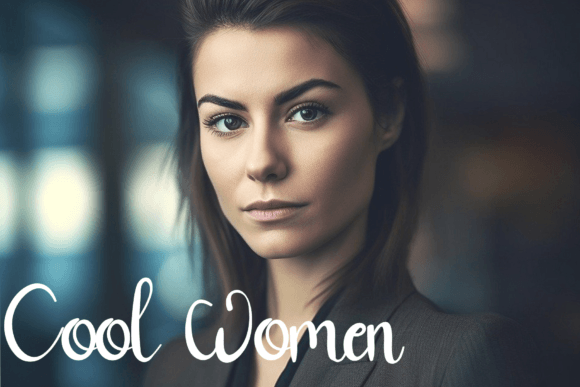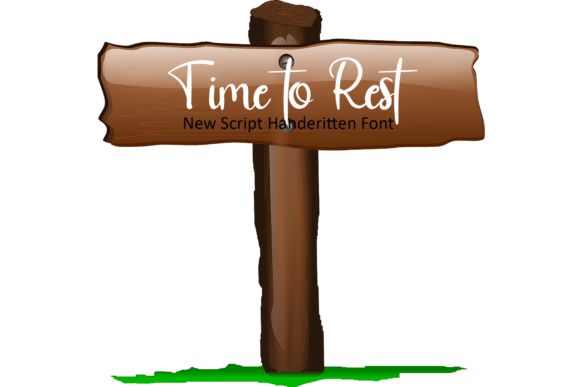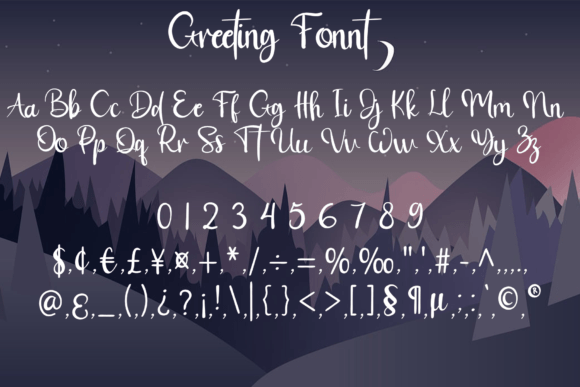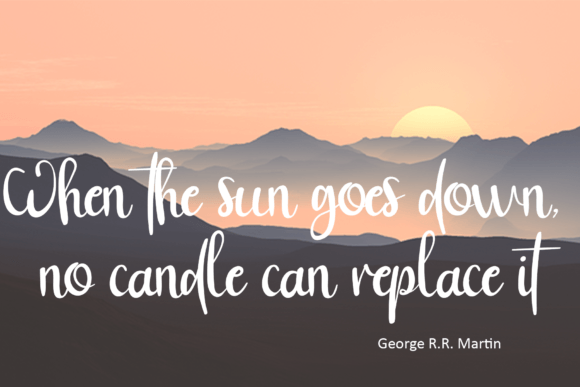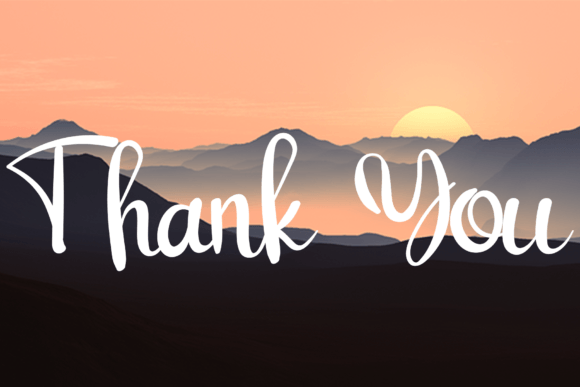
Greeting Font: Elevate Your Designs with Elegance and Sophistication
Are you tired of using the same old fonts in your designs? Look no further than the Greeting Font, a stunning handwritten font that is sure to take your projects to the next level. With its elegant and flowing lines, varied baselines, and smooth curves, this font is perfect for designers and crafters looking to add a touch of class and sophistication to their work.
The Characteristics of Greeting Font
Greeting Font is a beautifully crafted handwritten font that boasts a range of characteristics that set it apart from other fonts. Some of its key features include:
- Elegant and flowing lines: Greeting Font features smooth, flowing lines that give it a sense of movement and fluidity. This makes it perfect for creating beautiful, eye-catching headings and titles.
- Varied baselines: Unlike many fonts, Greeting Font features varied baselines that add to its sense of elegance and sophistication. This means that each letter has a unique baseline, creating a sense of visual interest and depth.
- Smooth curves: The curves in Greeting Font are smooth and flowing, giving the font a sense of softness and approachability. This makes it perfect for creating designs that are both beautiful and inviting.
- Classy calligraphic influence: Greeting Font has a clear calligraphic influence, giving it a sense of elegance and sophistication. However, it also feels contemporary and fresh, making it perfect for modern designs.
Why Use Greeting Font?
So why should you use Greeting Font in your designs? Here are just a few reasons:
- Add elegance and sophistication: Greeting Font is the perfect way to add a touch of elegance and sophistication to your designs. Whether you’re creating a logo, a heading, or a title, this font is sure to impress.
- Stand out from the crowd: With its unique and beautiful design, Greeting Font is sure to help your designs stand out from the crowd. Whether you’re designing for print or digital, this font is sure to grab attention.
- Perfect for a range of projects: Greeting Font is versatile and can be used for a range of projects, from wedding invitations and greeting cards to logos and branding.
- Easy to read: Despite its elegant and flowing design, Greeting Font is easy to read, making it perfect for designs where clarity is key.
How to Use Greeting Font
Using Greeting Font in your designs is easy. Here are a few tips to get you started:
- Use it for headings and titles: Greeting Font is perfect for creating beautiful headings and titles. Try using it to add a touch of elegance to your designs.
- Experiment with different colors: Greeting Font looks great in a range of colors, from bold and bright to soft and pastel. Experiment with different colors to find the one that works best for your design.
- Pair it with other fonts: Greeting Font pairs well with a range of other fonts, from sans serif to serif. Try pairing it with a bold font for a striking contrast.
In conclusion, Greeting Font is a beautiful and elegant handwritten font that is sure to take your designs to the next level. With its flowing lines, varied baselines, and smooth curves, this font is perfect for designers and crafters looking to add a touch of class and sophistication to their work. Whether you’re creating a logo, a heading, or a title, Greeting Font is the perfect choice. So why not fall in love with this font and take your projects to the highest level?